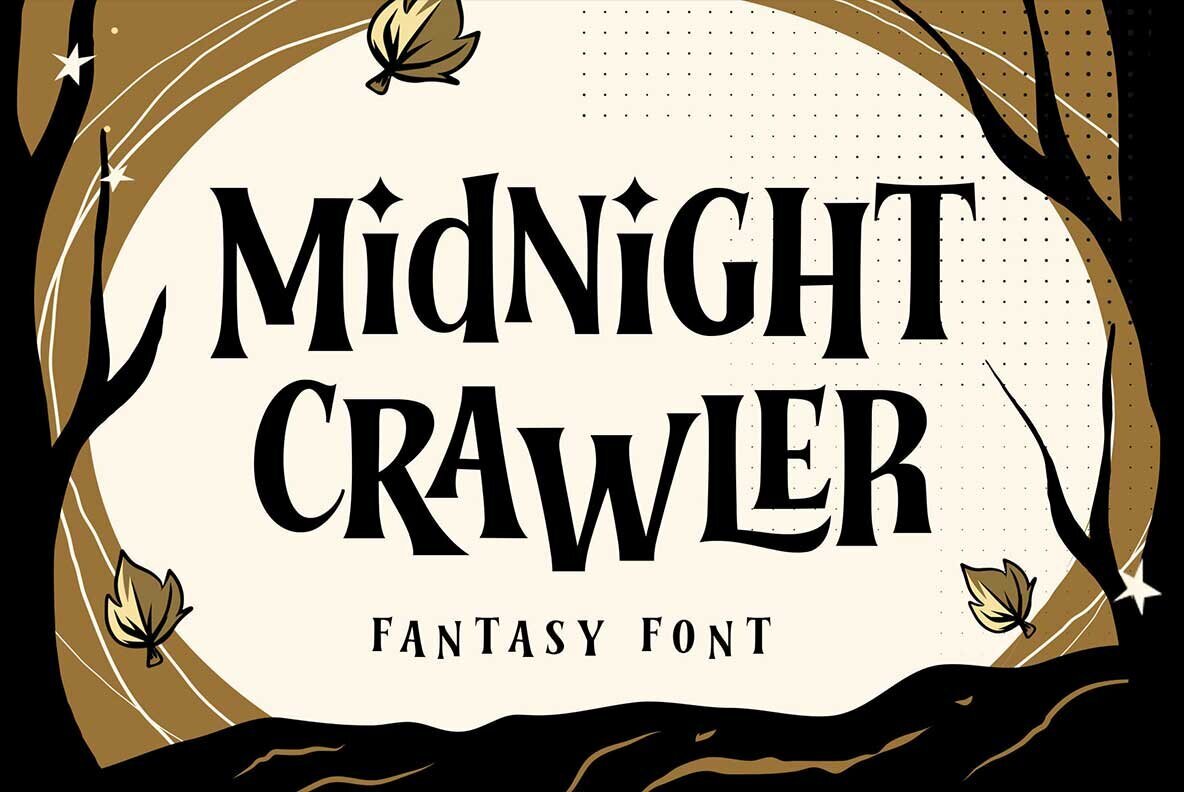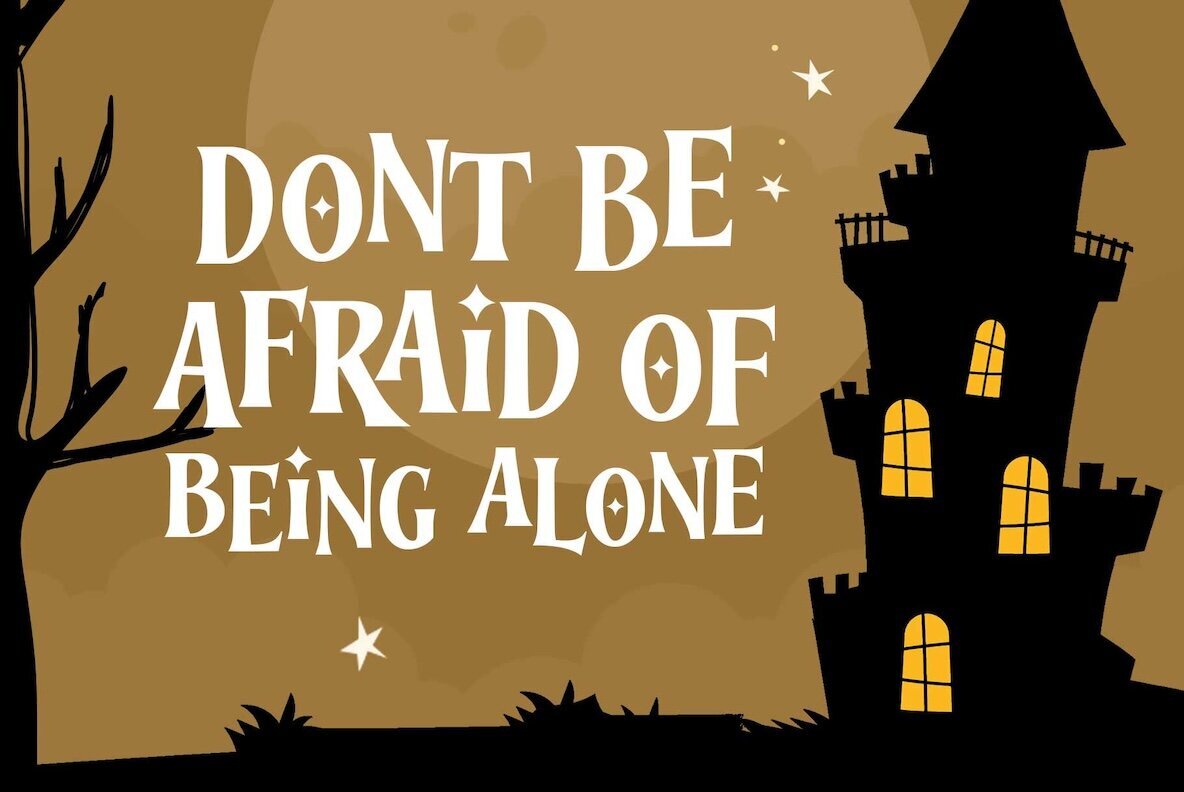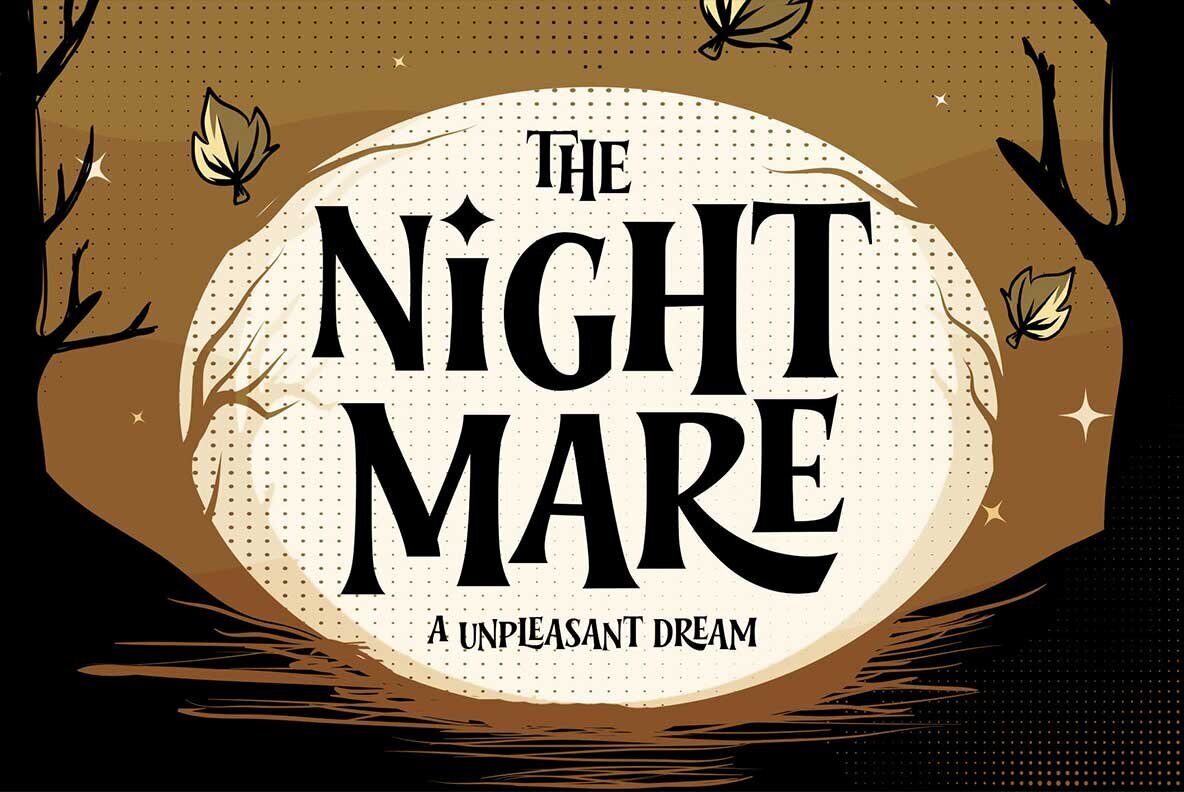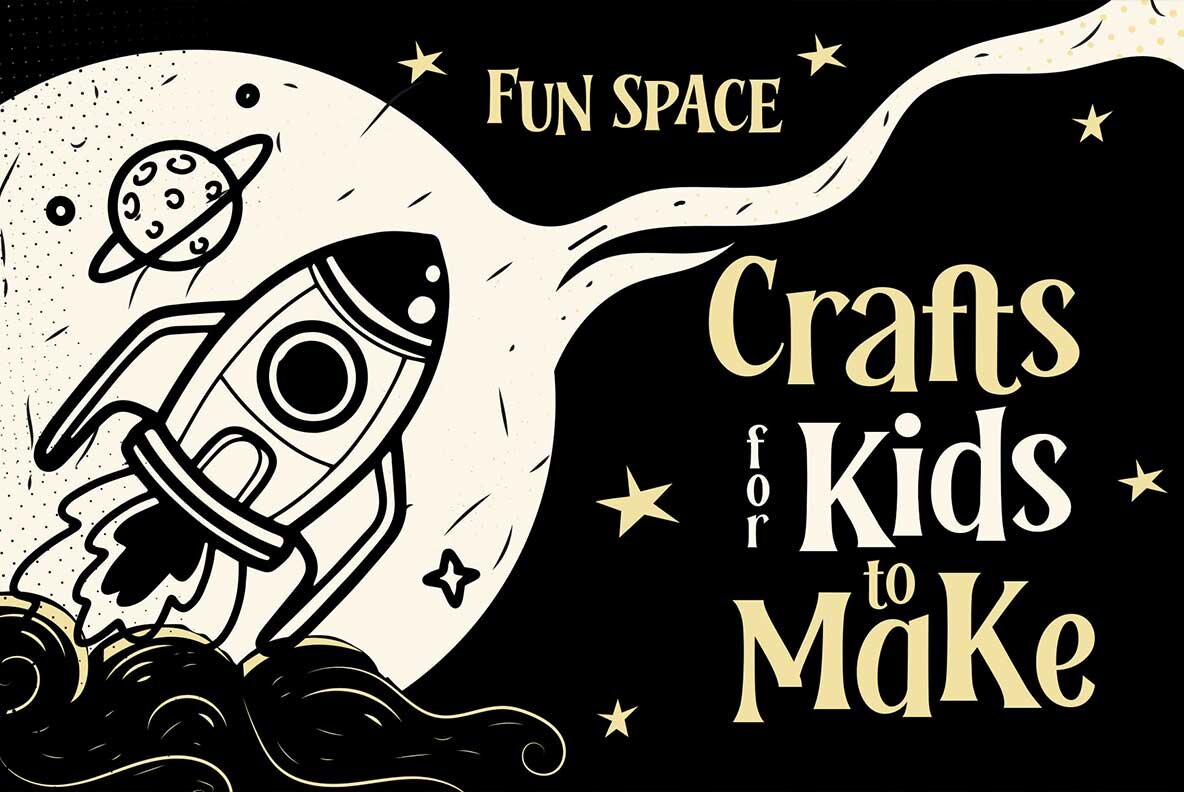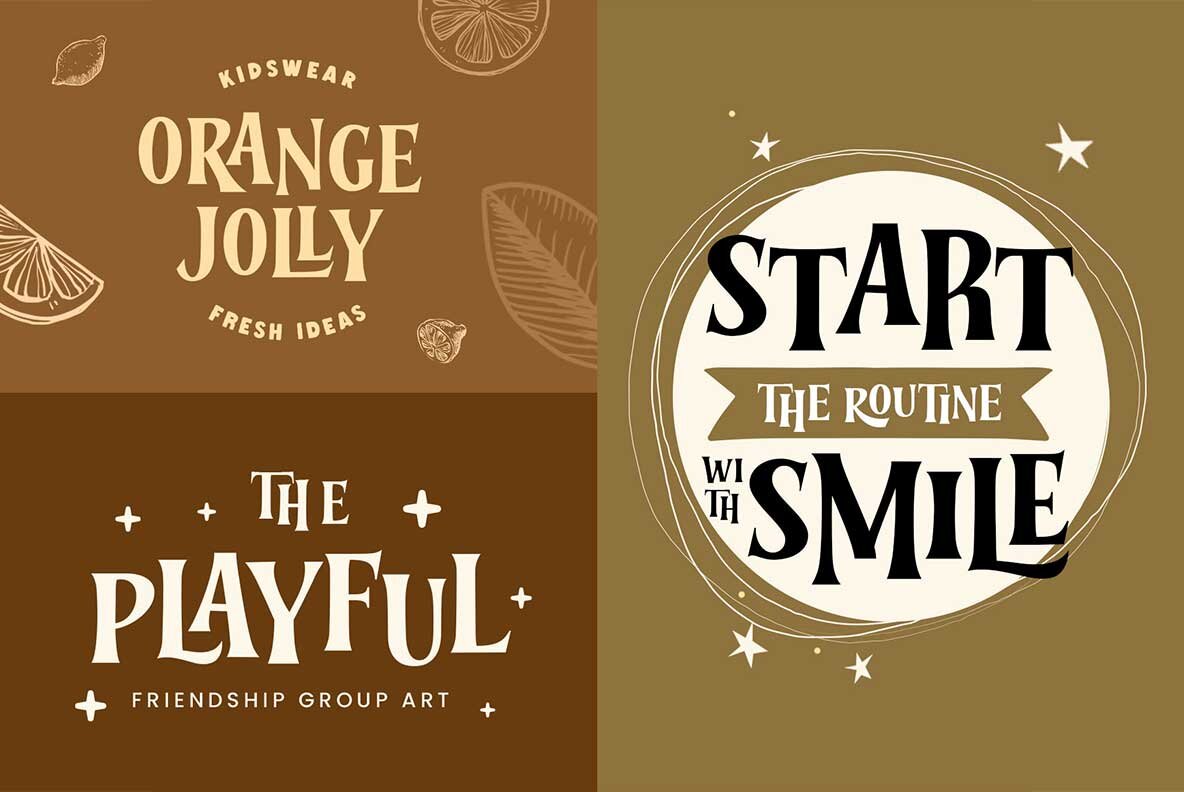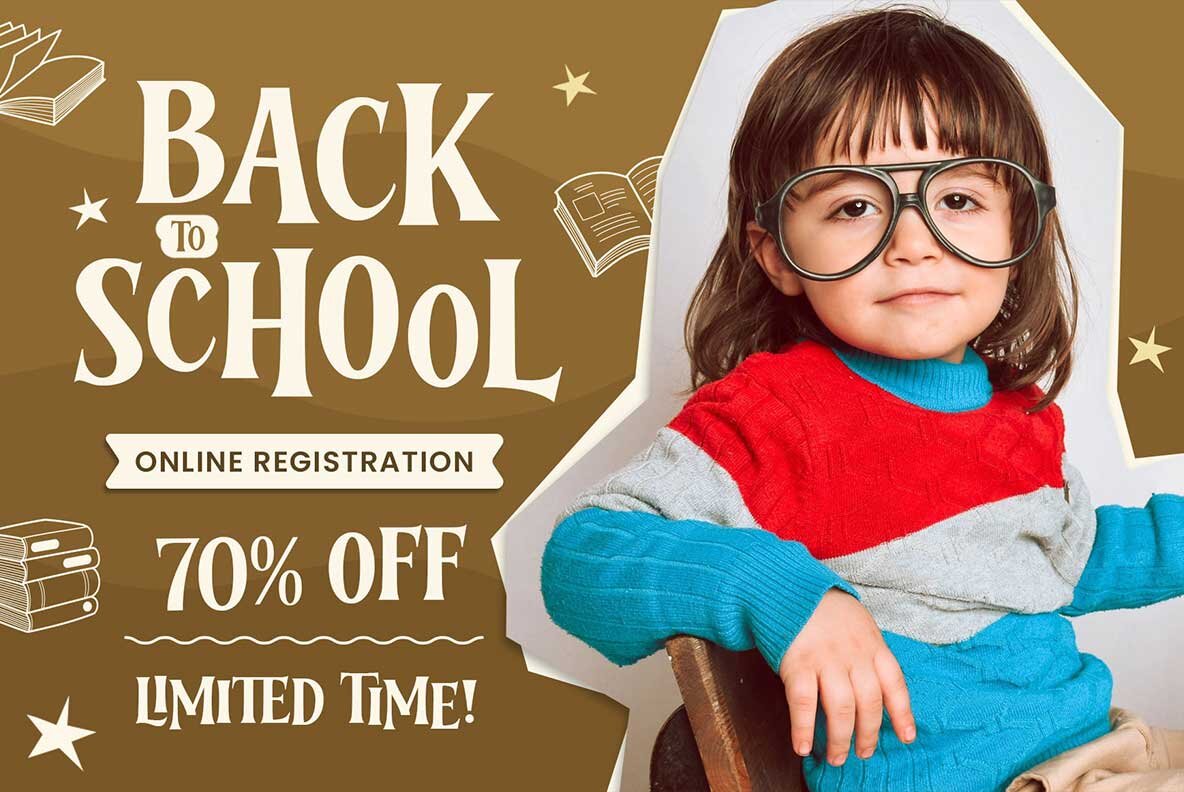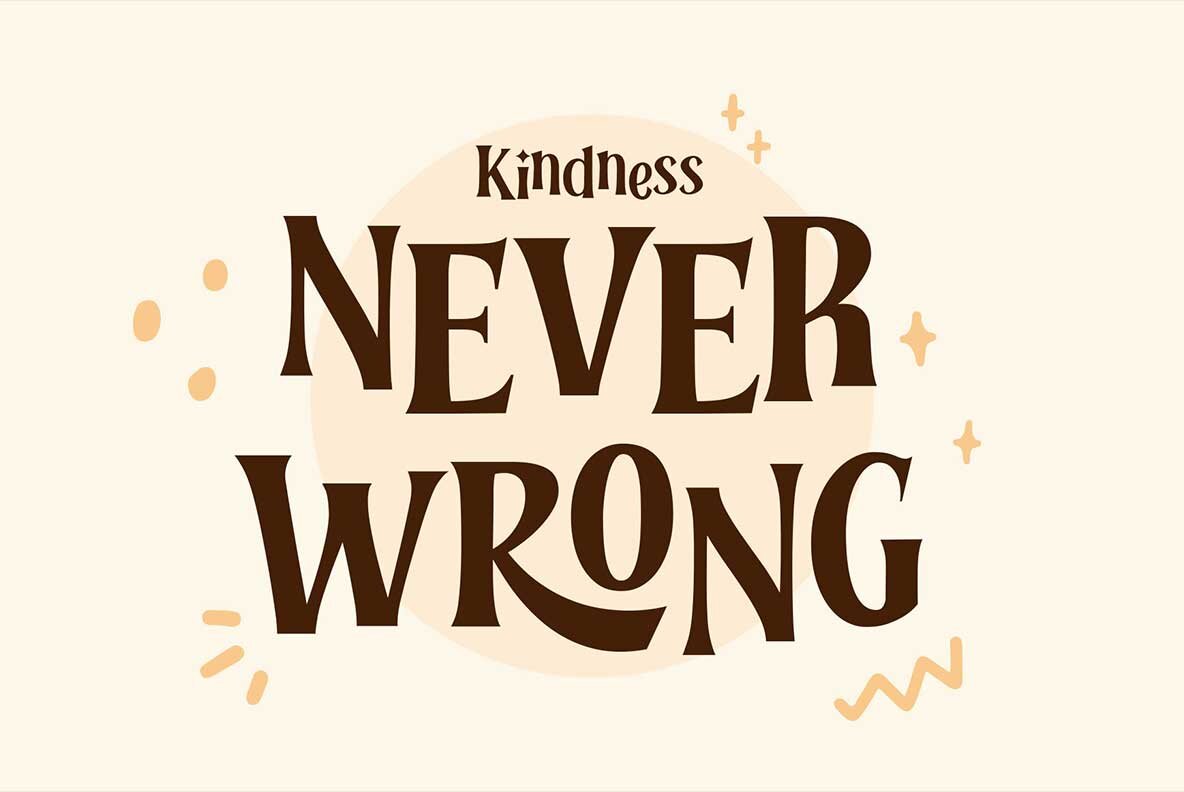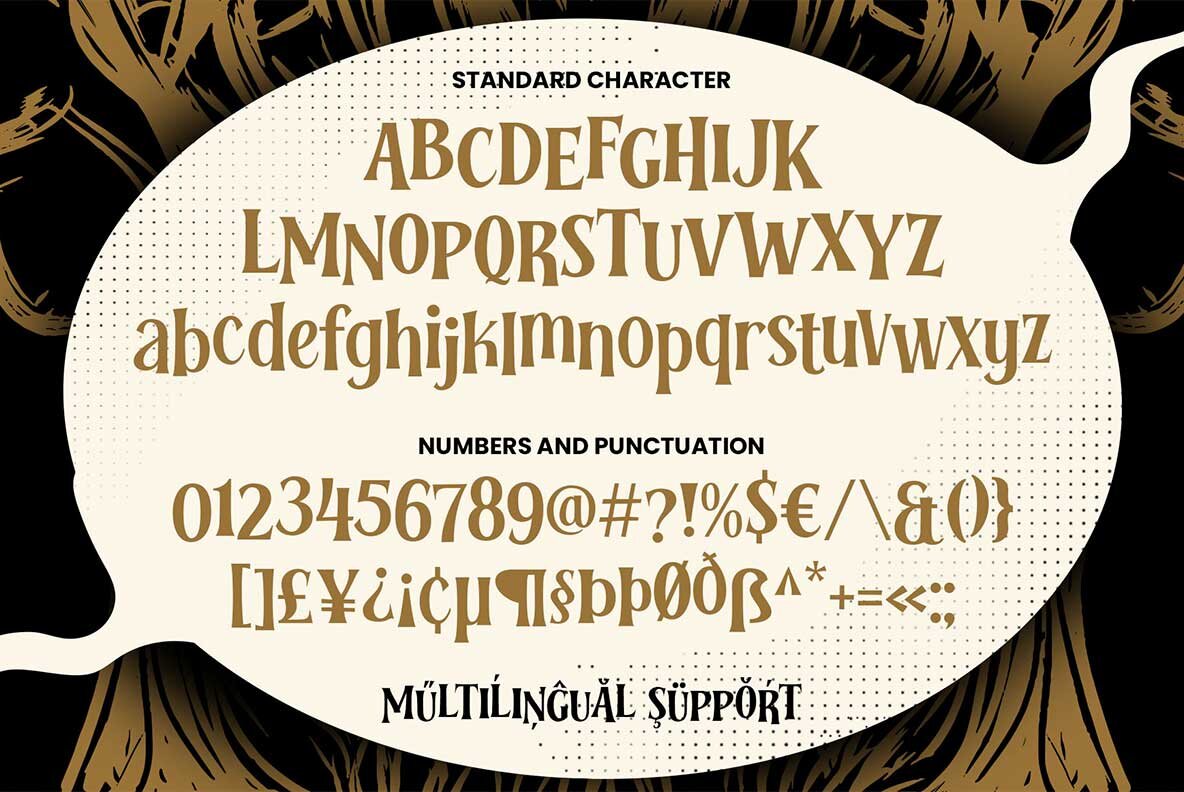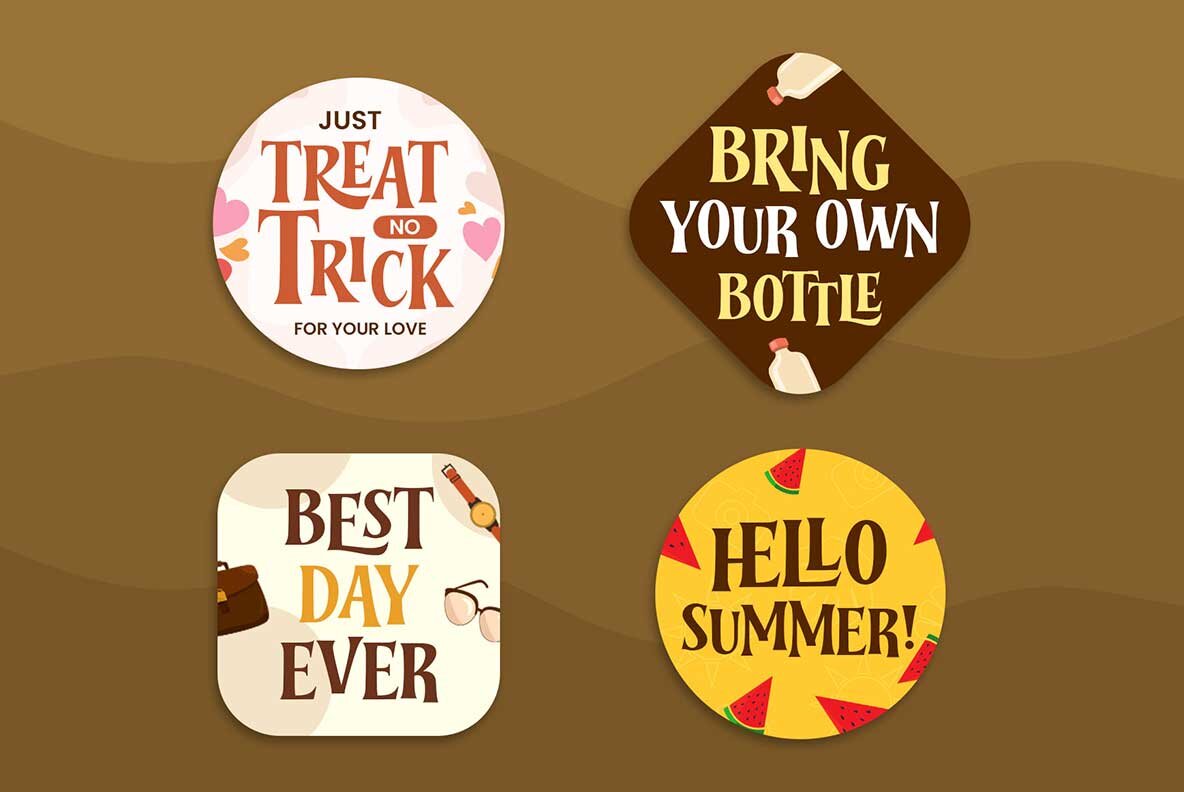
Nightmare Crawler Font
Midnight Crawler Regular
Midnight Crawler emerges from the depths of imagination with an enticing blend of horror and whimsy. Its distinct character is influenced by horror cartoons and fantasy movies, offering an intriguing visual experience. Ideal for headings, posters, stickers, packaging, and more, it embodies a versatile charm that balances the eerie with the delightful.Midnight Crawler: A Playful Horror Font